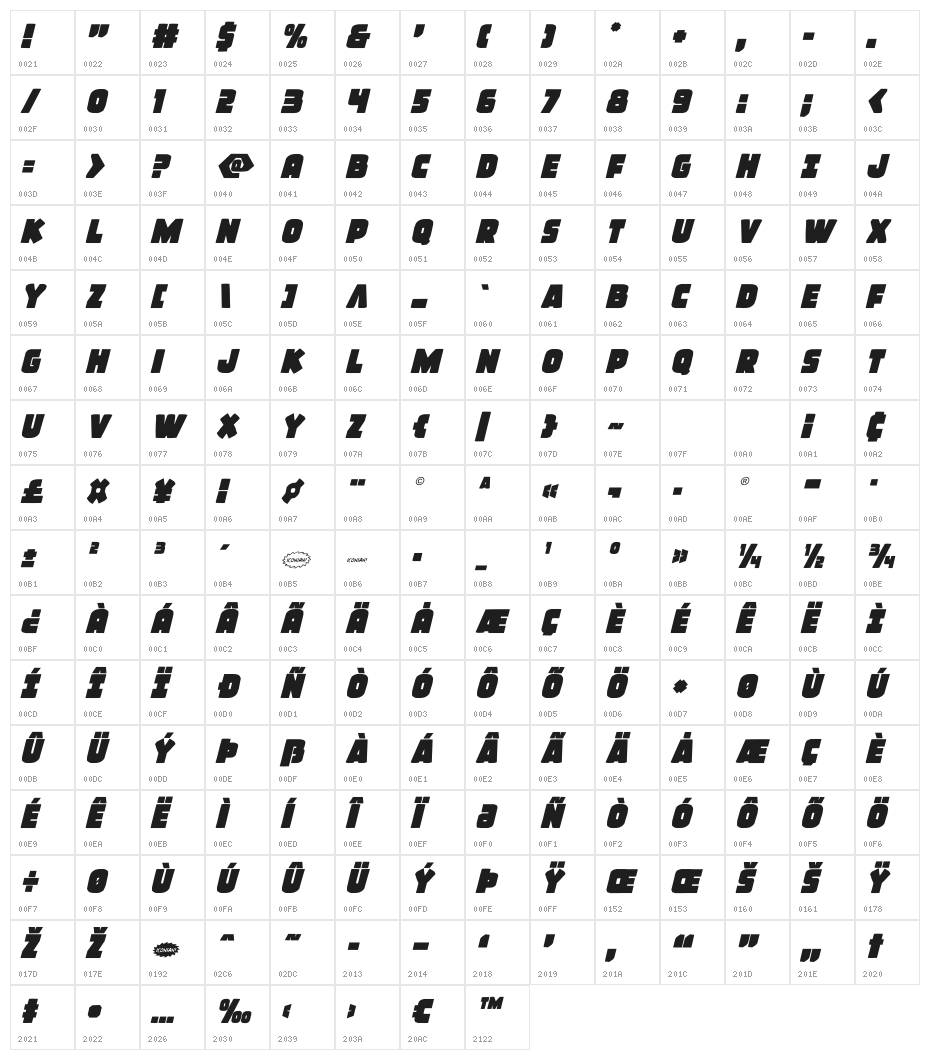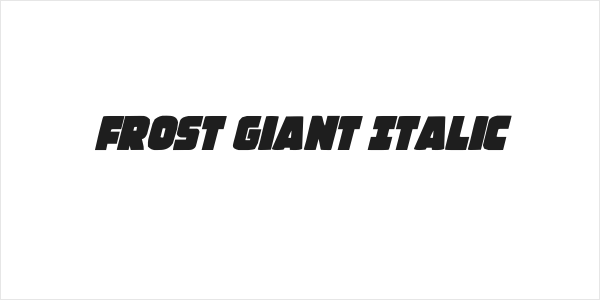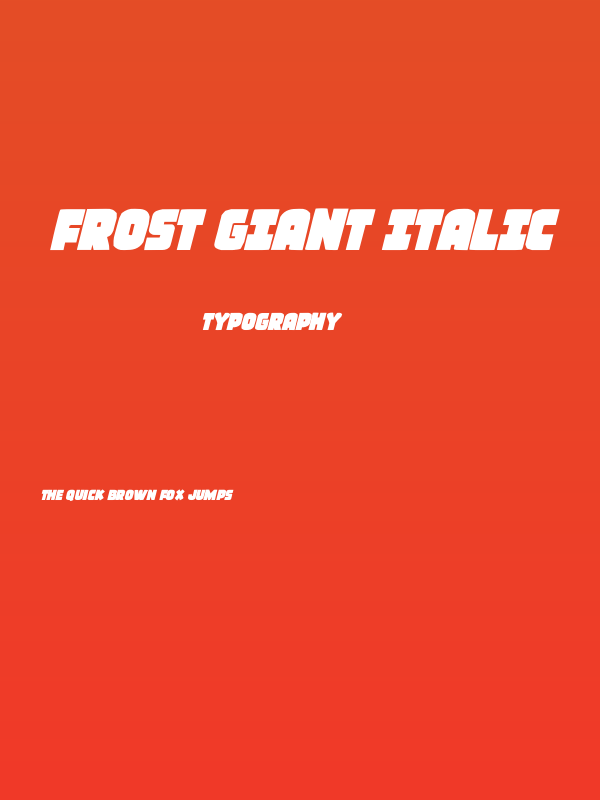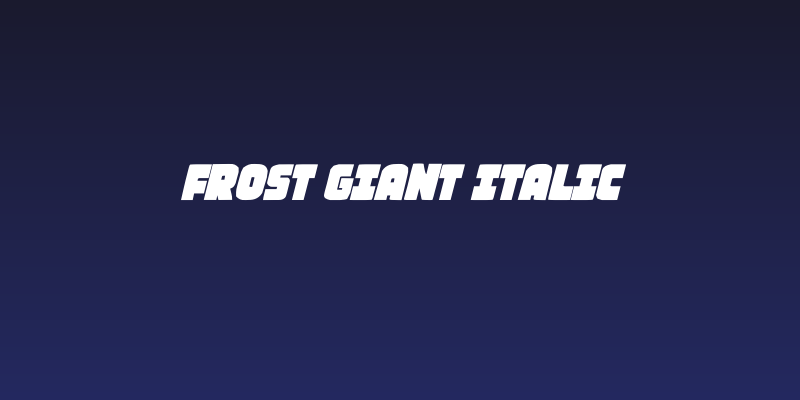
Frost Giant Italic Font
Frost Giant Italic Description
This font exhibits a bold and dynamic style with a strong italic slant, giving it a sense of motion and energy. The characters are robust and chunky, with a geometric influence that makes them stand out. Each letter is designed with a consistent thickness, contributing to a uniform appearance across the typeface. The boldness of the font makes it highly visible and impactful, suitable for grabbing attention. The numbers and special characters maintain the same bold and italicized characteristics, ensuring consistency throughout. This font is ideal for projects that require a strong visual presence.
| Proposed Projects | Ideal for sports branding, action movie posters, dynamic advertisements, and any project needing a bold statement. |